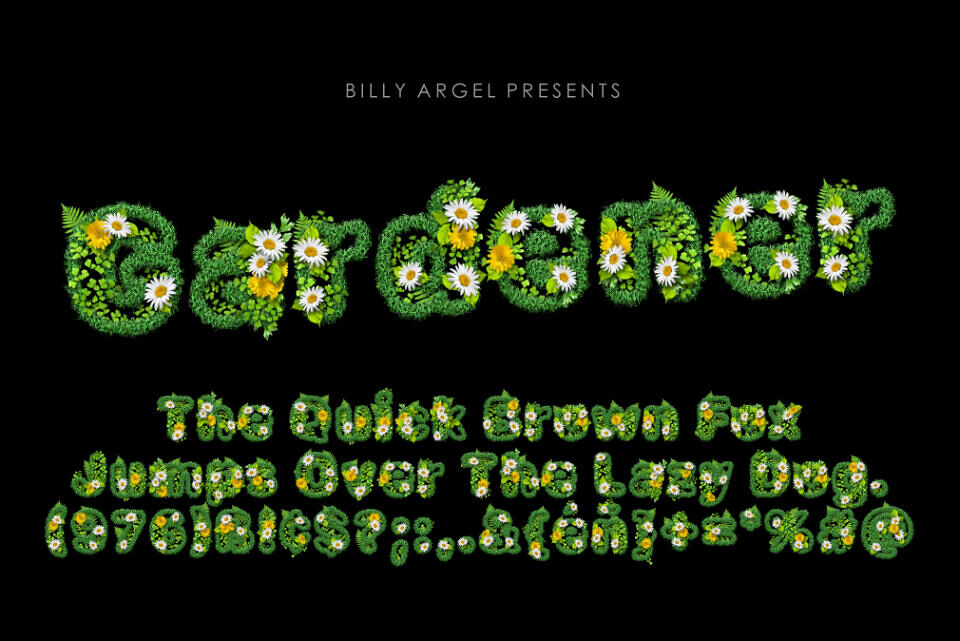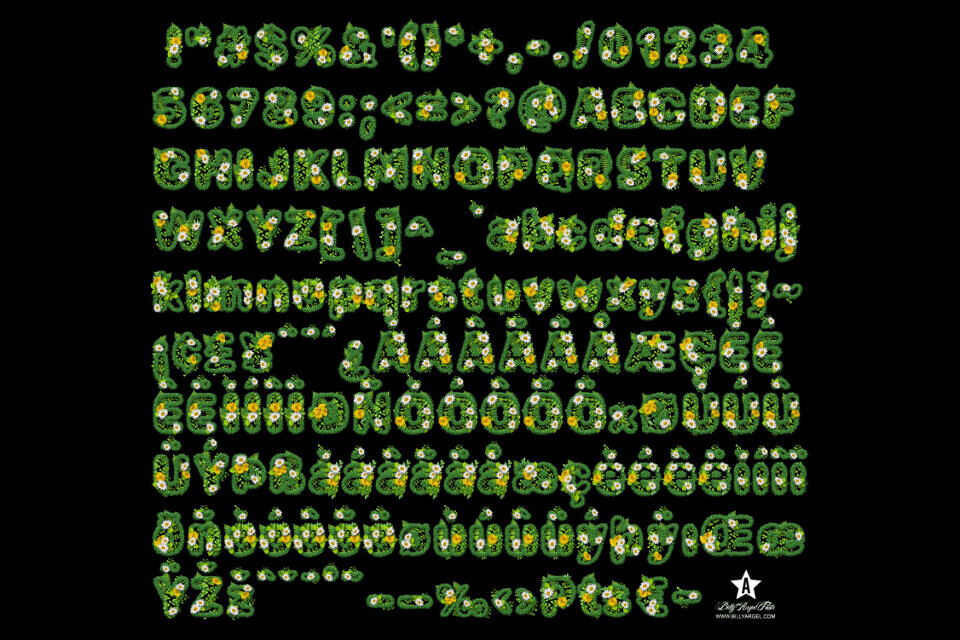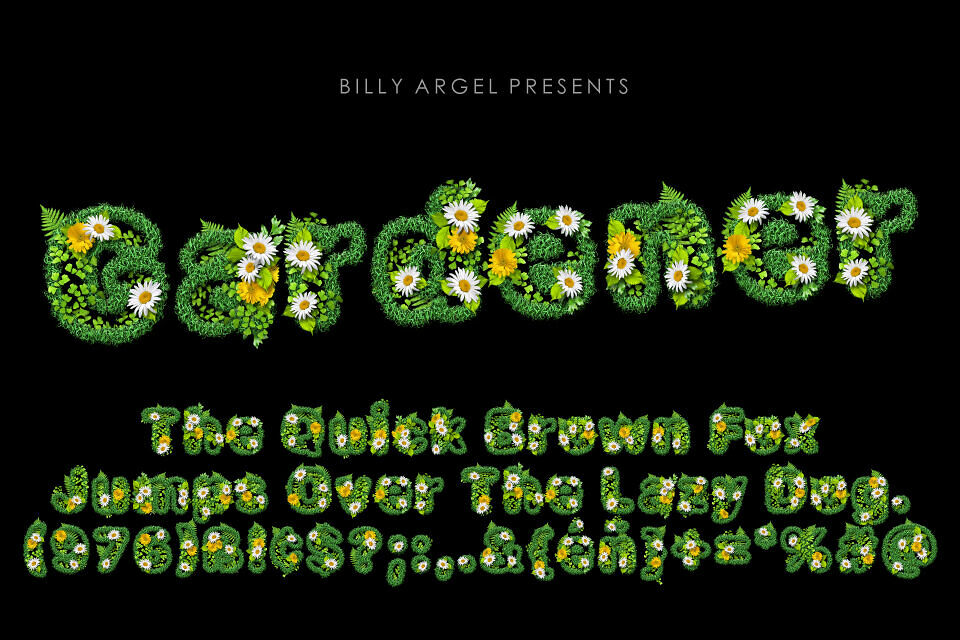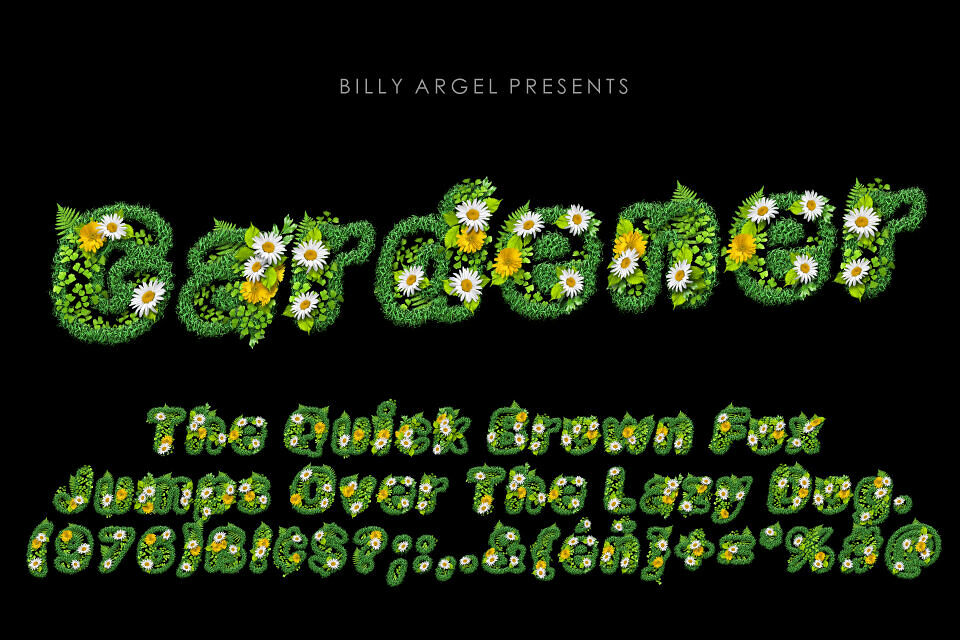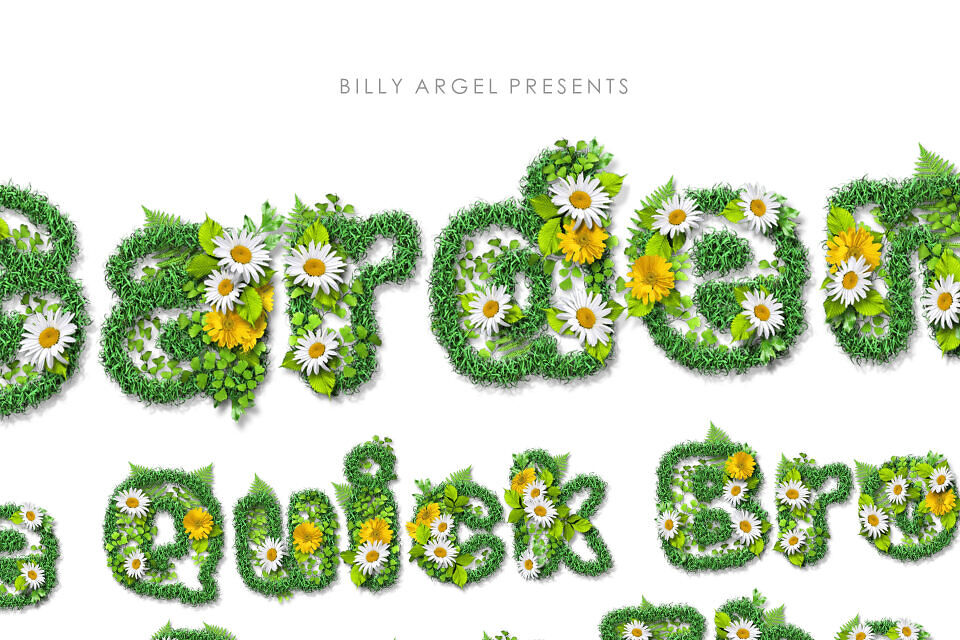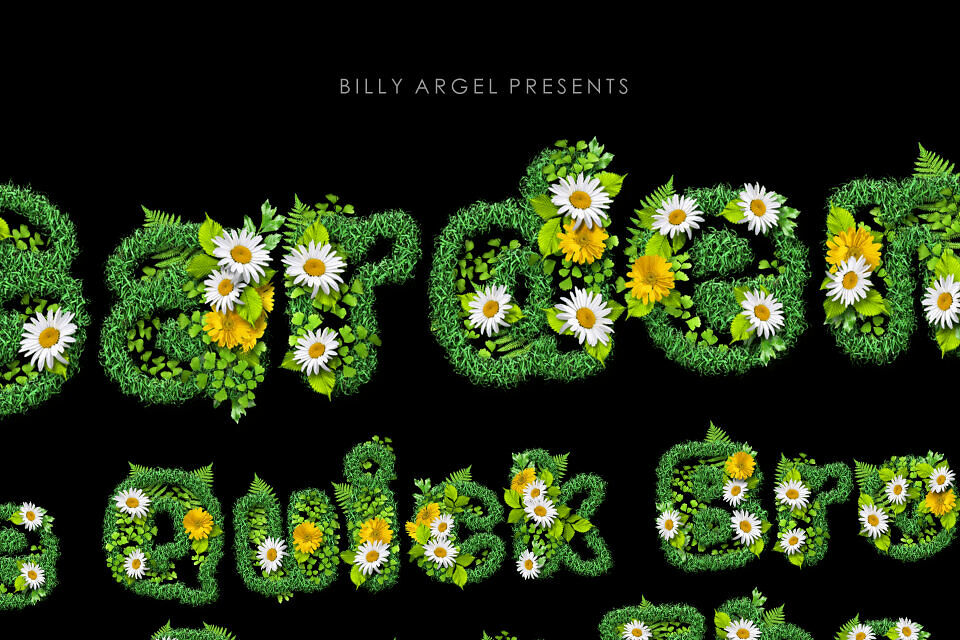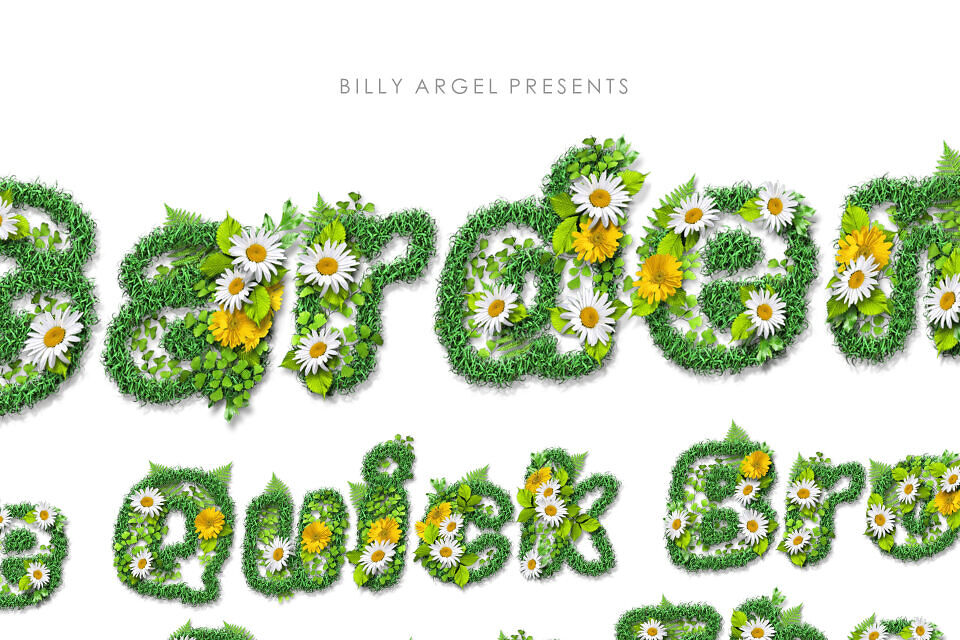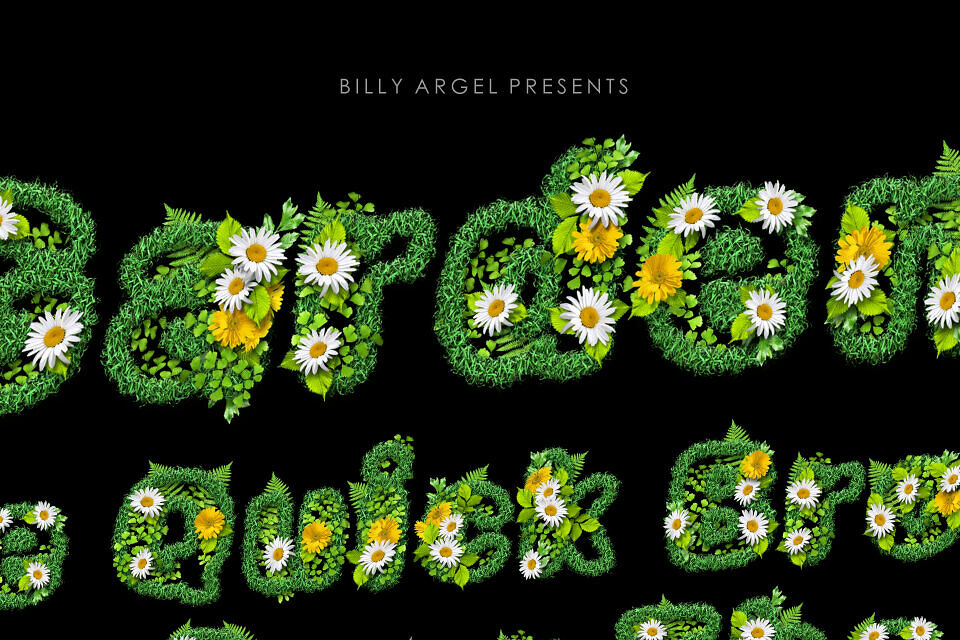
Gardener’s Type Font by Billy Argel Fonts, released in 2023, is a bold, nature-inspired typeface with a rustic charm. Available in bold and bold italic, its textured, organic letterforms evoke the feel of hand-carved wood or earthy sketches, perfect for gardening-themed projects.
Ideal for logos, posters, or plant lover merchandise, it supports OpenType SVG in apps like Adobe Photoshop 2017 and Illustrator 2017.